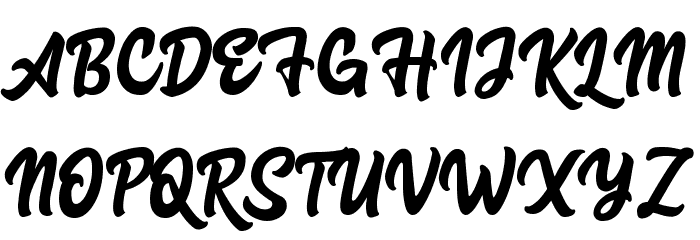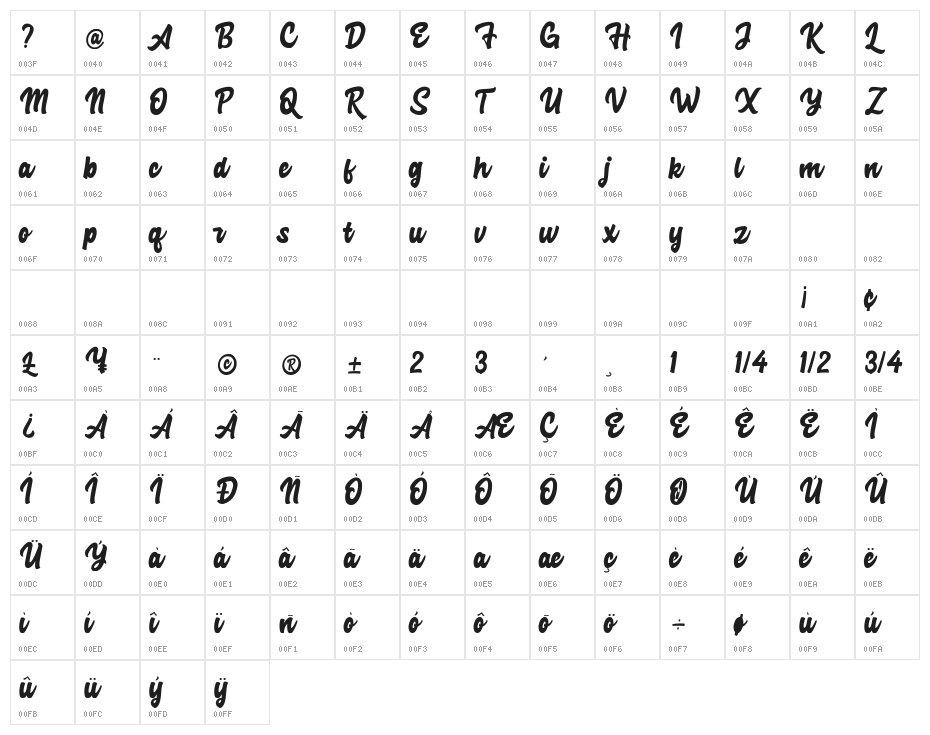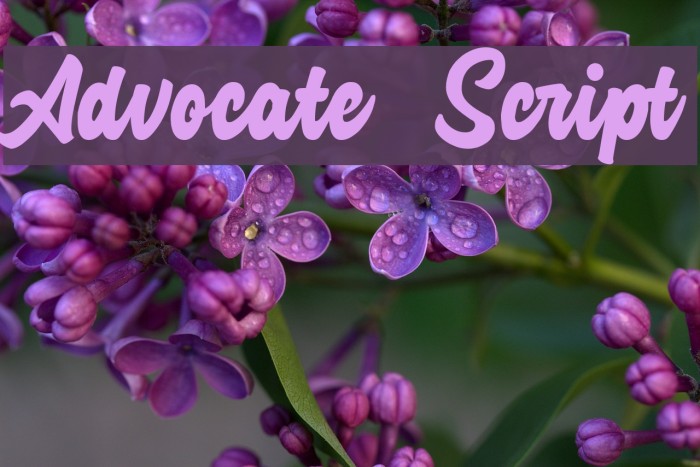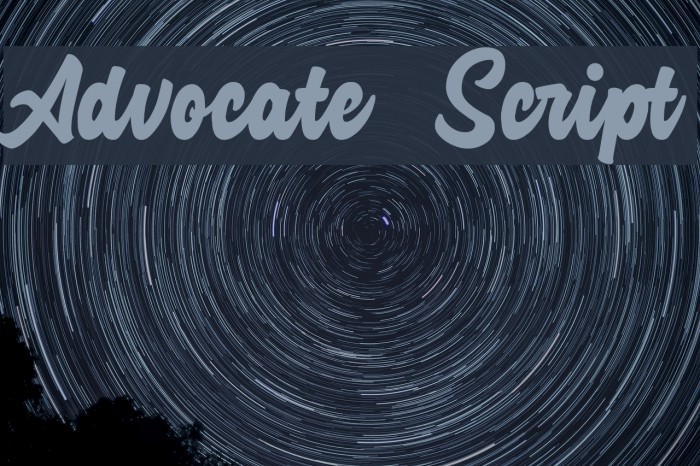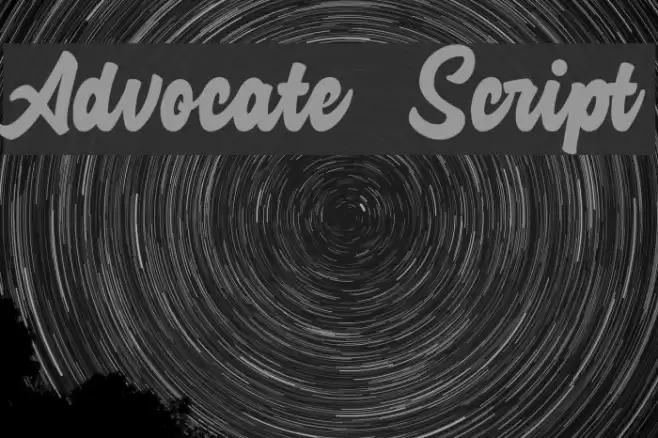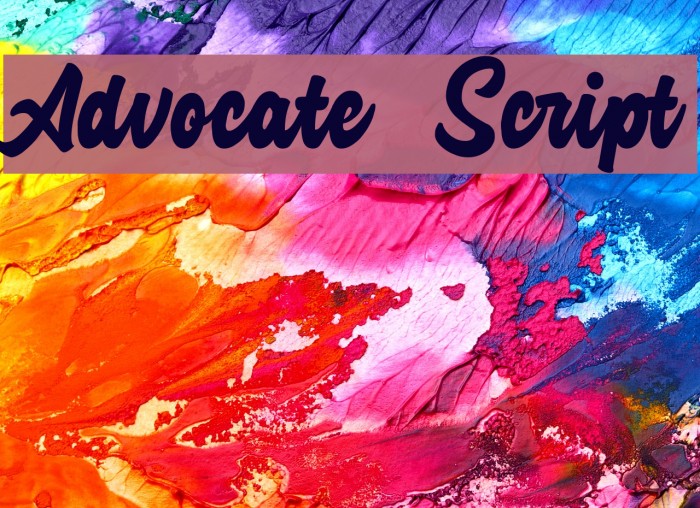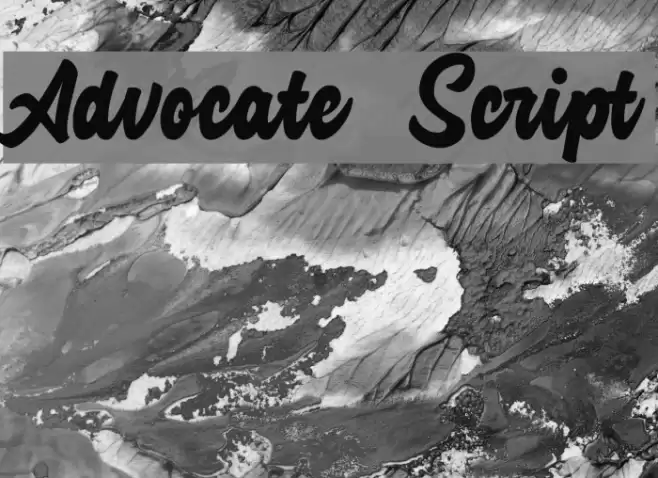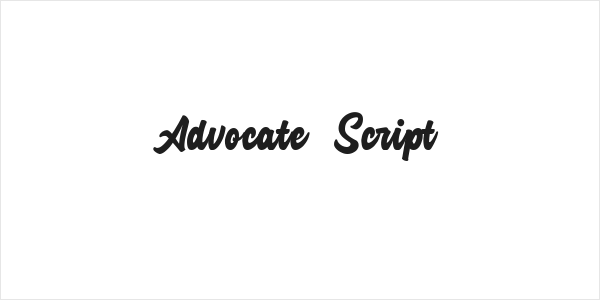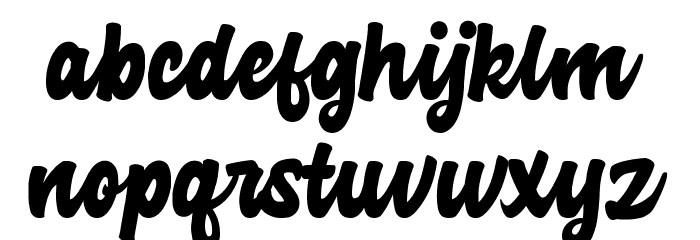
Advocate Script Font
Advocate Script Description
This font features a bold, flowing script style that exudes a sense of elegance and sophistication. The characters are connected in a cursive manner, with smooth curves and a consistent stroke width that adds to its cohesive appearance. The uppercase letters are slightly more ornate, with flourishes that enhance their decorative quality, while the lowercase letters maintain a more straightforward, yet still stylish, design. The font's overall look is both classic and modern, making it versatile for various design needs. Its bold presence ensures readability while maintaining an artistic flair.
| Overall Style | Elegant, Classic |
| Proposed Projects | Ideal for wedding invitations, branding, logos, and elegant packaging designs. |